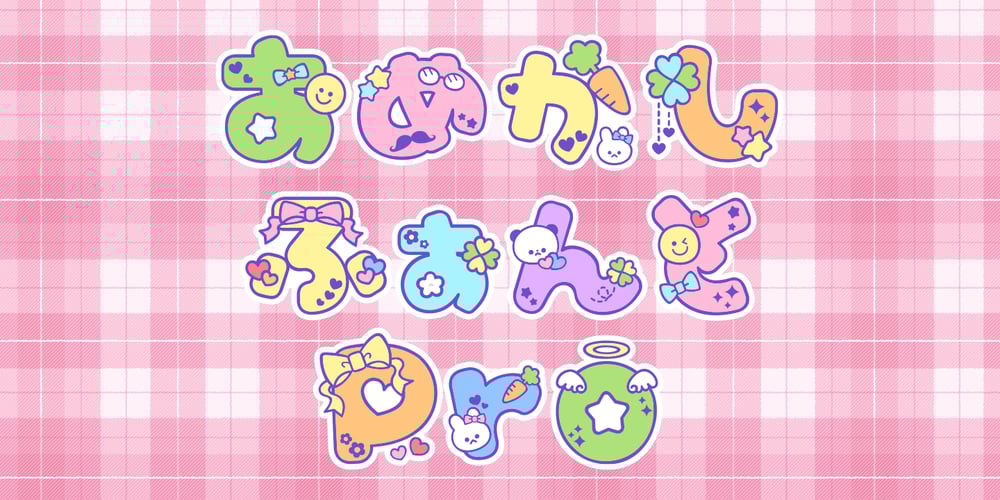
Omekashi Font Pro Font Family was designed by Norio Kanisawa and published by Norio Kanisawa. Omekashi Font Pro contains 1 styles and family package options. I thought that “Anyway cute fonts!”, Fancy fonts with pops decorated gorgeous cute illustrations. I tried dressed on the letters as well as wearing my favorite clothes when going out. Although it is lacking in readability, I think whether it is fun to use colors or use them pointwise. Since the decoration is different each character, animals are found in various places, ribbons, hearts, and foods are decorated, so it may be interesting to see it one character at a time. It would be greatly appreciated if you use it, or who looked at it could feel a little happy. <「おめかしふぉんとPro」紹介文> 「とにかくかわいいフォントを!」と思って、文字をかわいいイラストでごてごて派手に飾ったポップでファンシーなフォントです。 お出かけの際にお気に入りの服を着ておめかしをするように、文字にもおめかしをしてみました。 可読性には欠けますが、色を塗ってみたりポイント的に使うと面白いかと思います。 一文字ずつ装飾が違っており、色んなところに動物がいたりリボンやハート、食べ物でデコレーションされているので、一文字ずつ見るのも面白いかもしれません。 使ってくださる方、見てくださる方が少しでも幸せな気分になれれば幸いです。 <スタイルカテゴリー> ファンシー、装飾